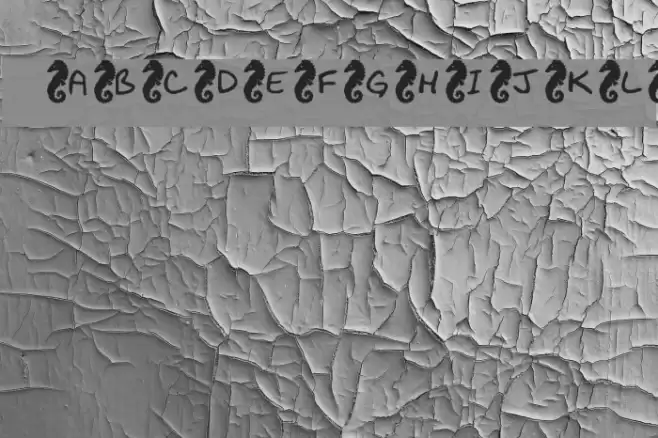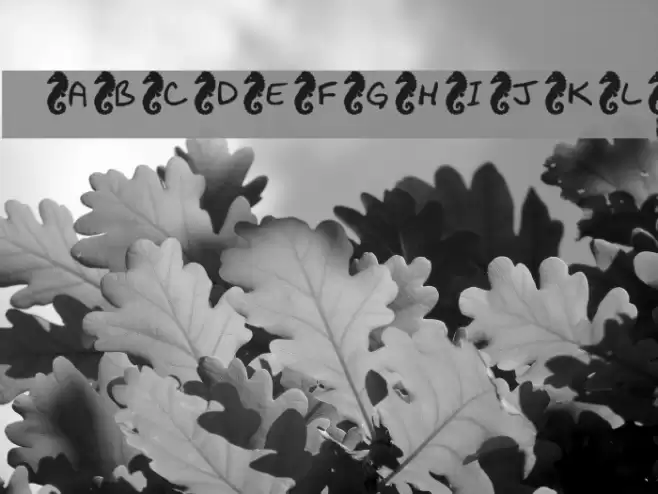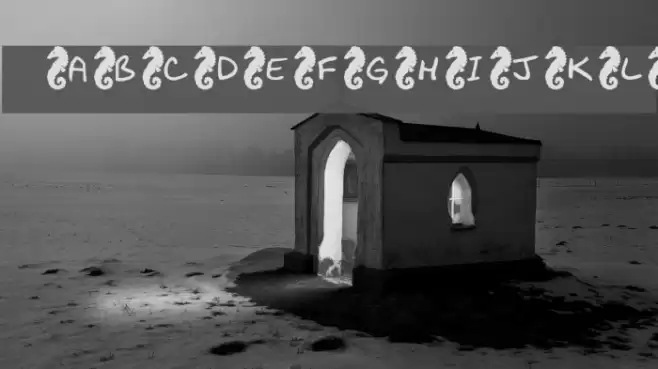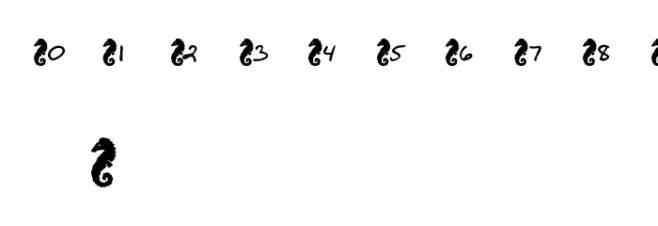
KR Seahorse Font
KR Seahorse Description
This decorative font features a unique design where each character is integrated with a seahorse motif. The uppercase and lowercase letters are embellished with seahorse shapes, creating a whimsical and oceanic theme. The numbers and special characters also follow this design, maintaining consistency throughout the font. The style is playful and artistic, making it suitable for creative projects that require a touch of marine life. The font's intricate details and distinctive appearance make it stand out, ideal for thematic designs.
A decorative font with seahorse motifs integrated into each character from Uncategorized fonts.
- Proposed Projects: Ideal for ocean-themed designs, children's books, creative posters, and event invitations.
- Use Case: Logos, Posters, Invitations